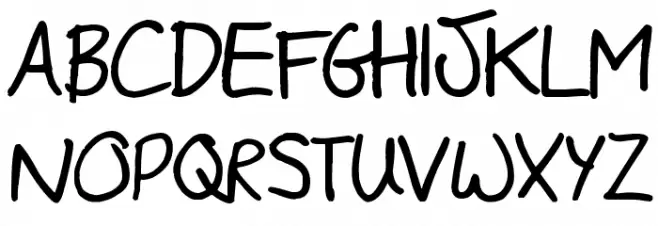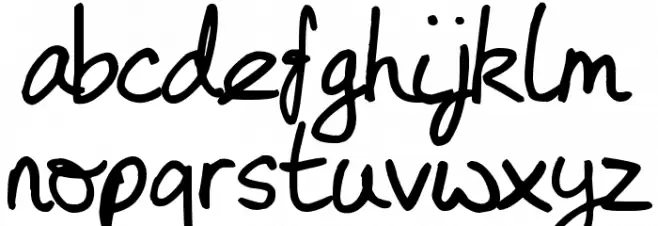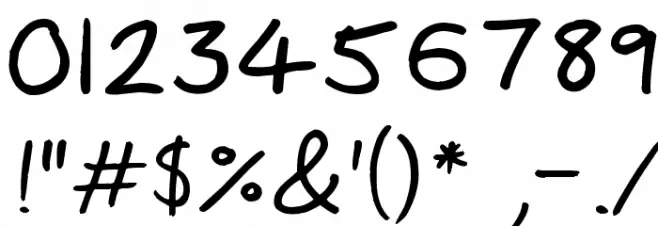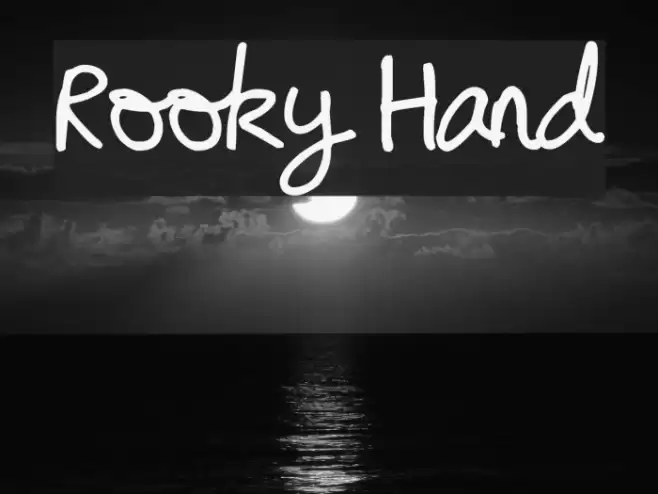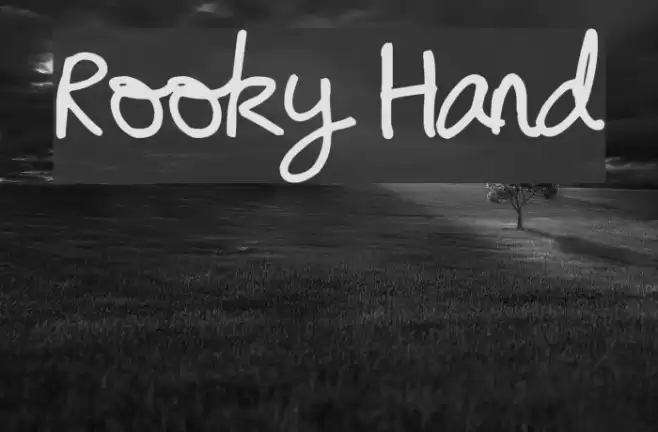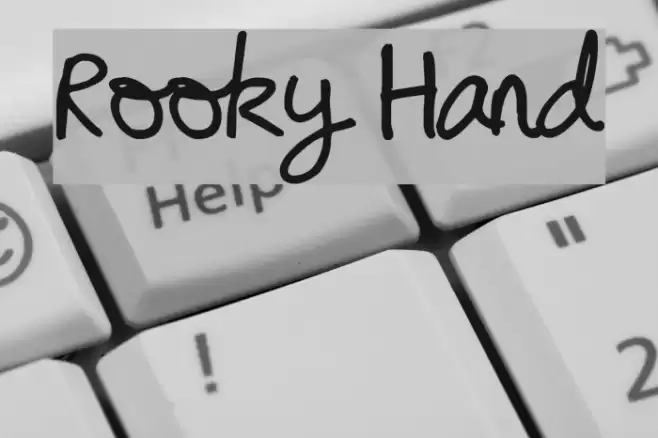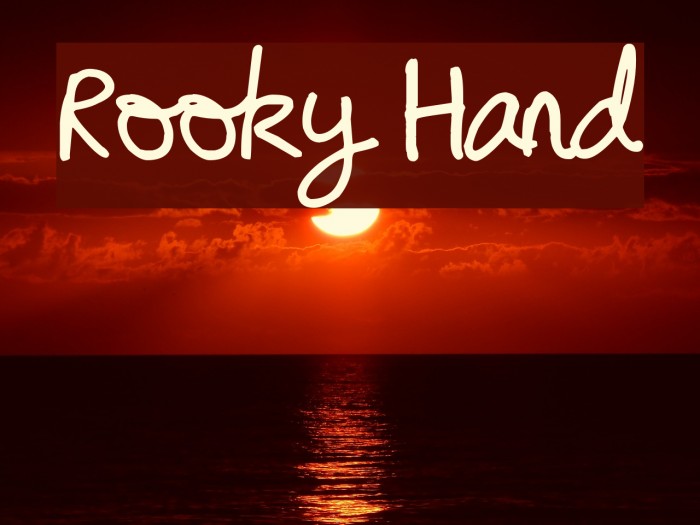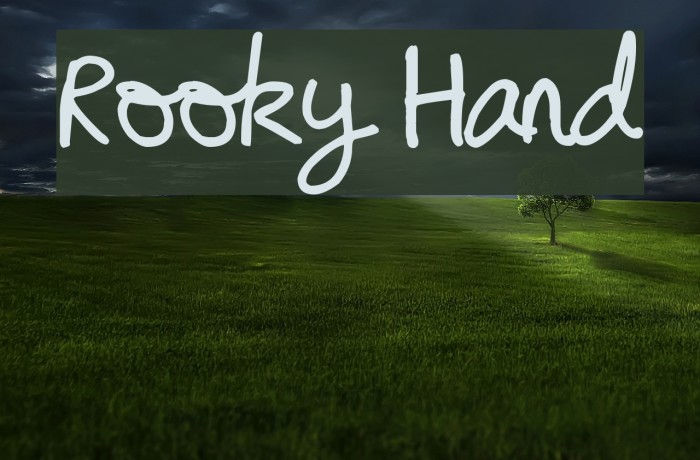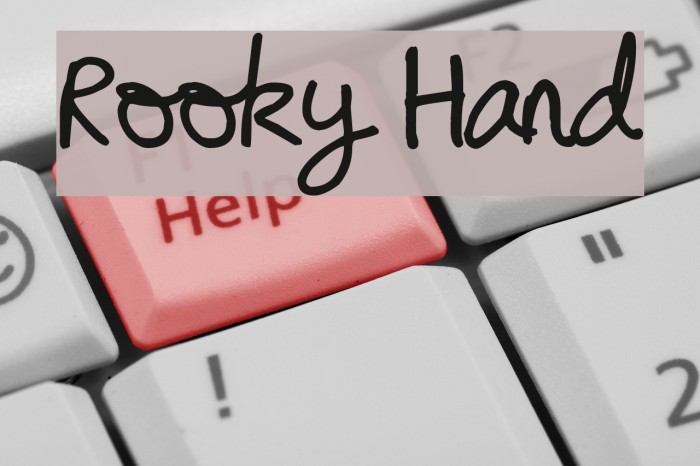
Rooky Hand
This font exudes a playful and casual handwritten style, characterized by its fluid and natural strokes. The letters are slightly slanted, giving it an informal and approachable feel. The uppercase and lowercase letters maintain a consistent flow, with rounded edges and a slight variation in stroke width that adds to its charm. The numbers and special characters are crafted with the same playful touch, ensuring uniformity across the typeface. This font is perfect for projects that require a personal and friendly touch, such as greeting cards, invitations, or casual branding.
A playful, handwritten font with fluid strokes and a casual feel.
- Proposed Projects: Ideal for greeting cards, invitations, casual branding, and personal projects.
- Overall Style: Casual
- Use Case: Headlines, Informal text, Personal projects